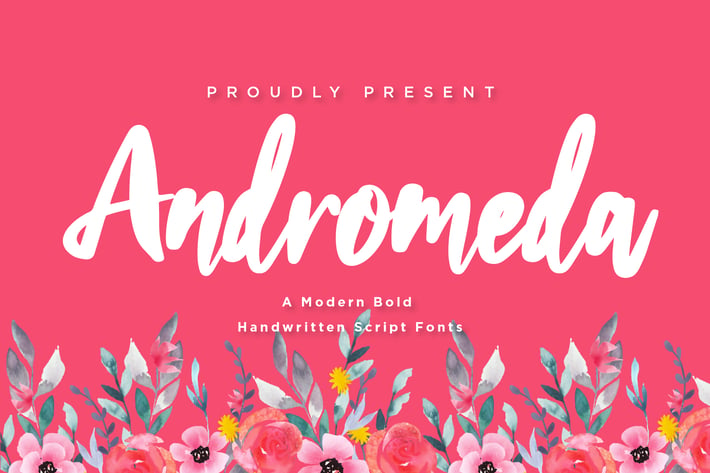
Andromeda - Moden Bold Handwritten Script fonts
Andromeda is a Moden Bold Handwritten Script font, will be suitable for any projects such as branding, promotional ads, quotes design, merchandise, social media and much more. make your work or your business to high level!!! special events, and all your other lovely projects that need beautiful handwriting taste.
- Uppercase & Lowercase
- Numerals
- Punctuations (OpenType Standard)
- Accents (Multilingual Characters)